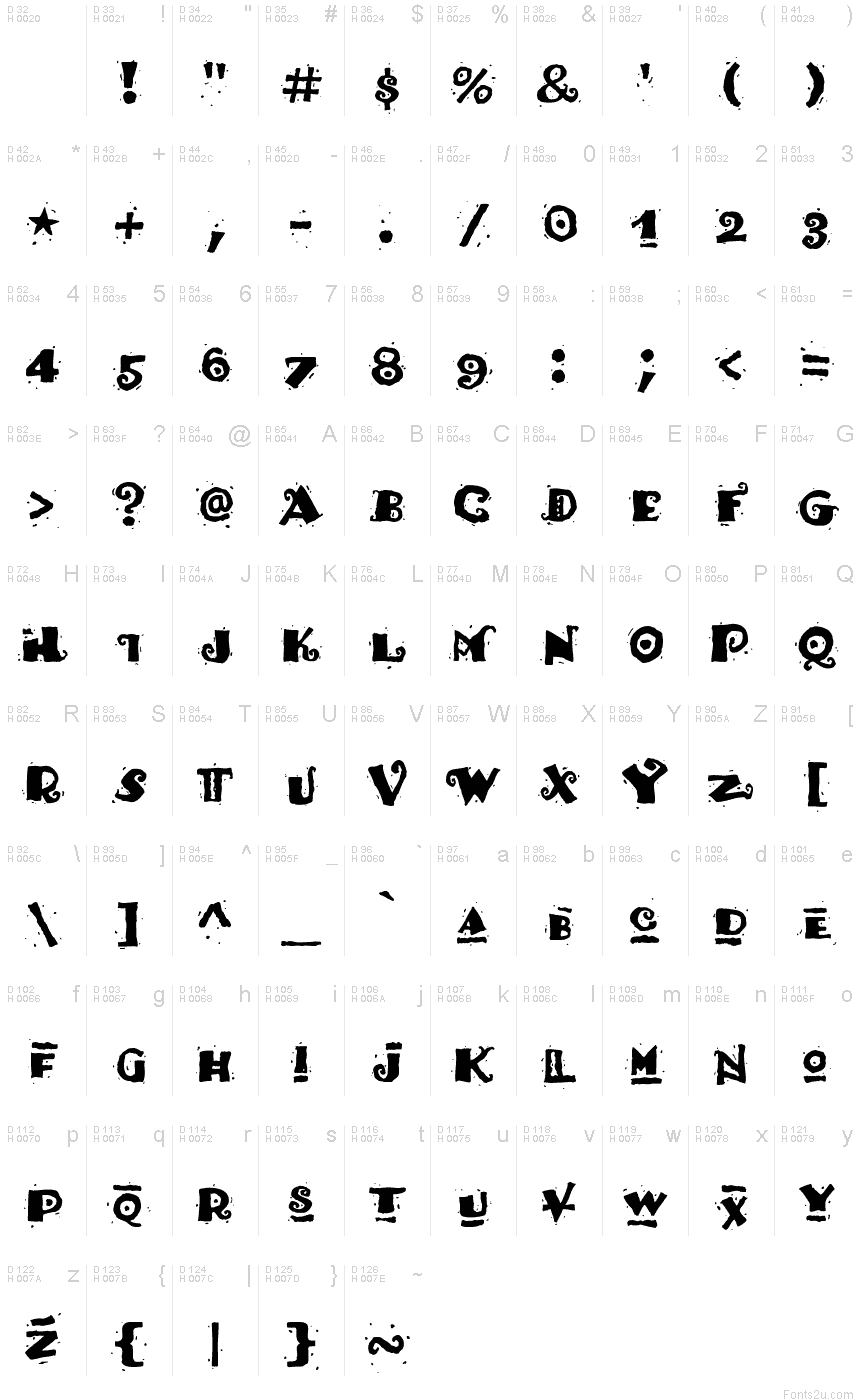
HotTamale
Hot Tamale font by Weatherly Systems is a free distorted display font that looks like it’s been stamped in thick, splattering ink. Chunky, irregular letters wobble on rough little plinths, with scattered specks that feel smoky and explosive rather than clean or polite. There’s a chaotic, hand-pulled energy here that jumps off the page and refuses to sit quietly in the background.
Using Hot Tamale, you can crank up the drama on gig posters, horror or grindhouse movie flyers, Halloween invites, zine titles, album covers, and edgy game logos. This free font works best at large sizes where all the splatters and jagged edges can really breathe; pair it with a plain, tight sans serif for body text so the wild texture stays punchy and readable.